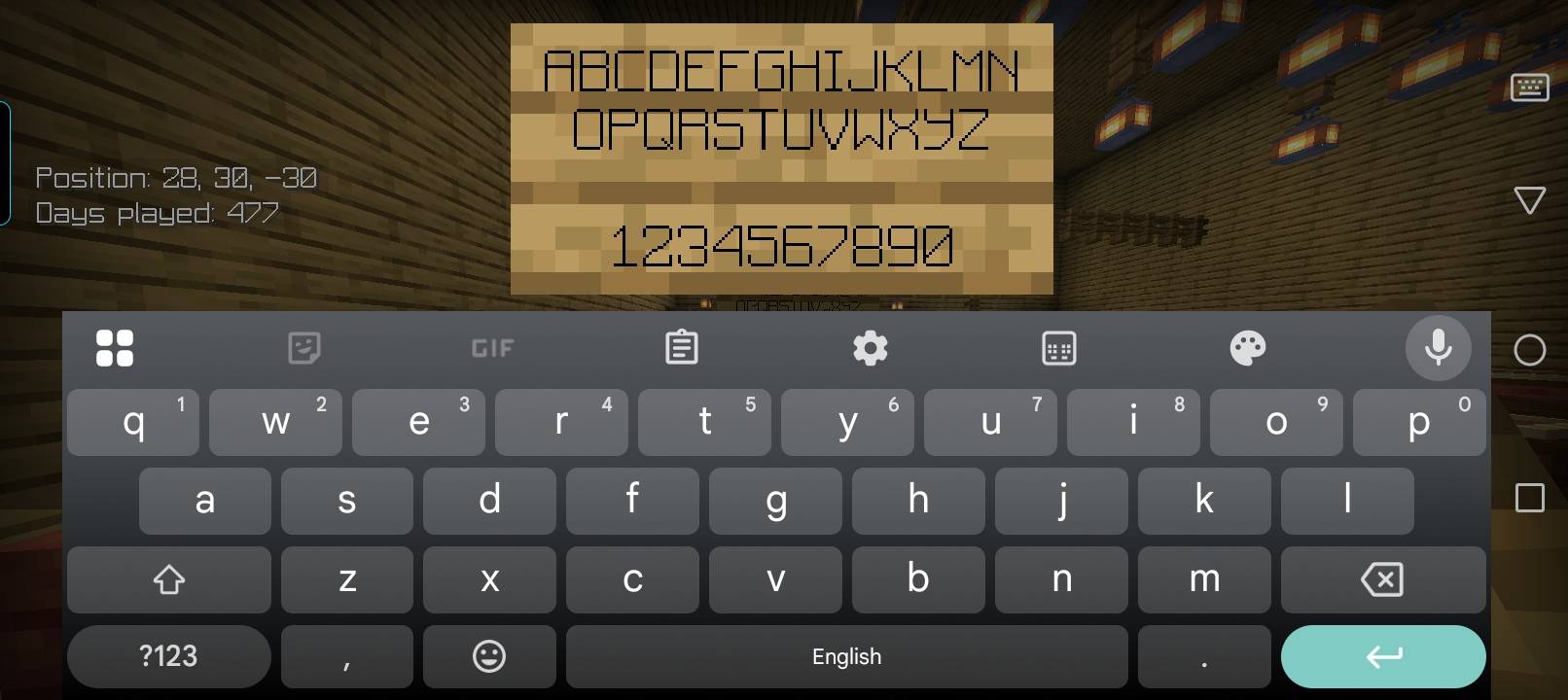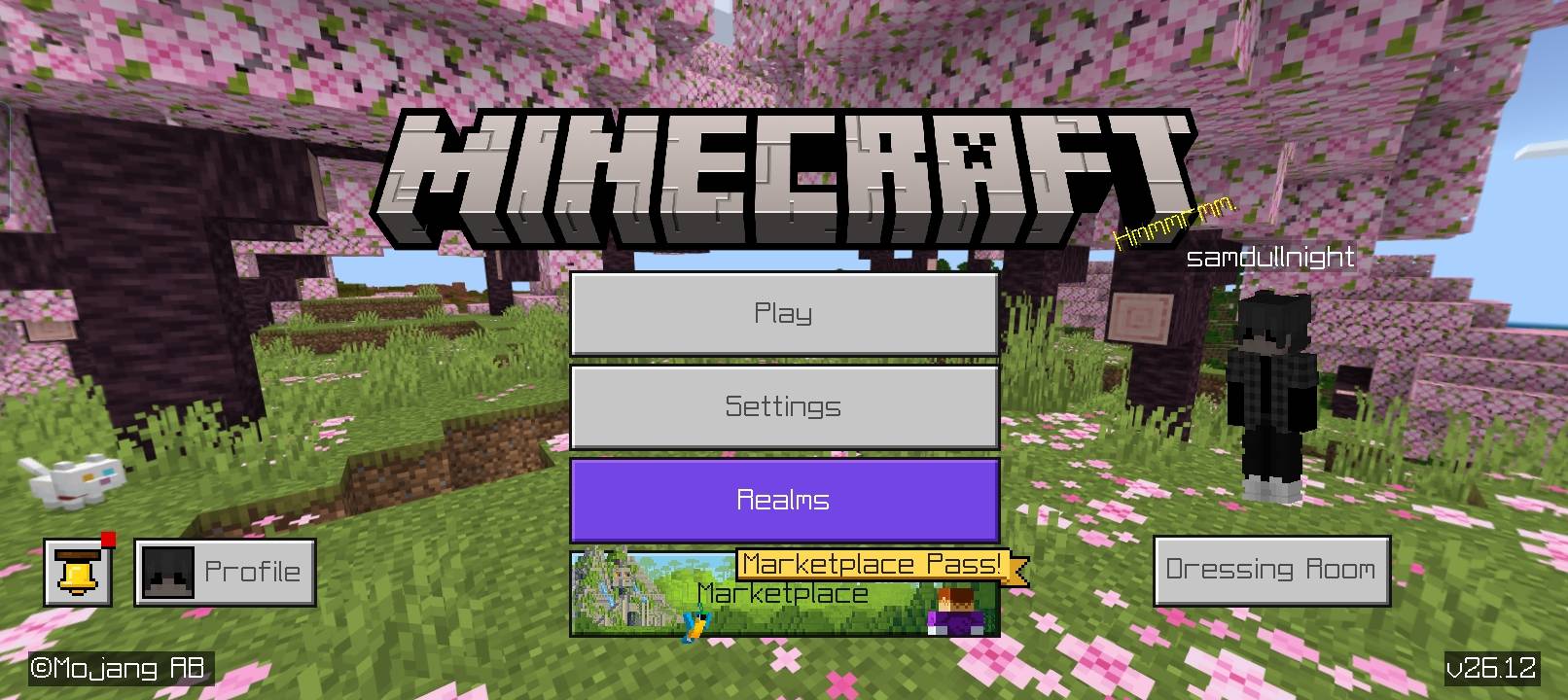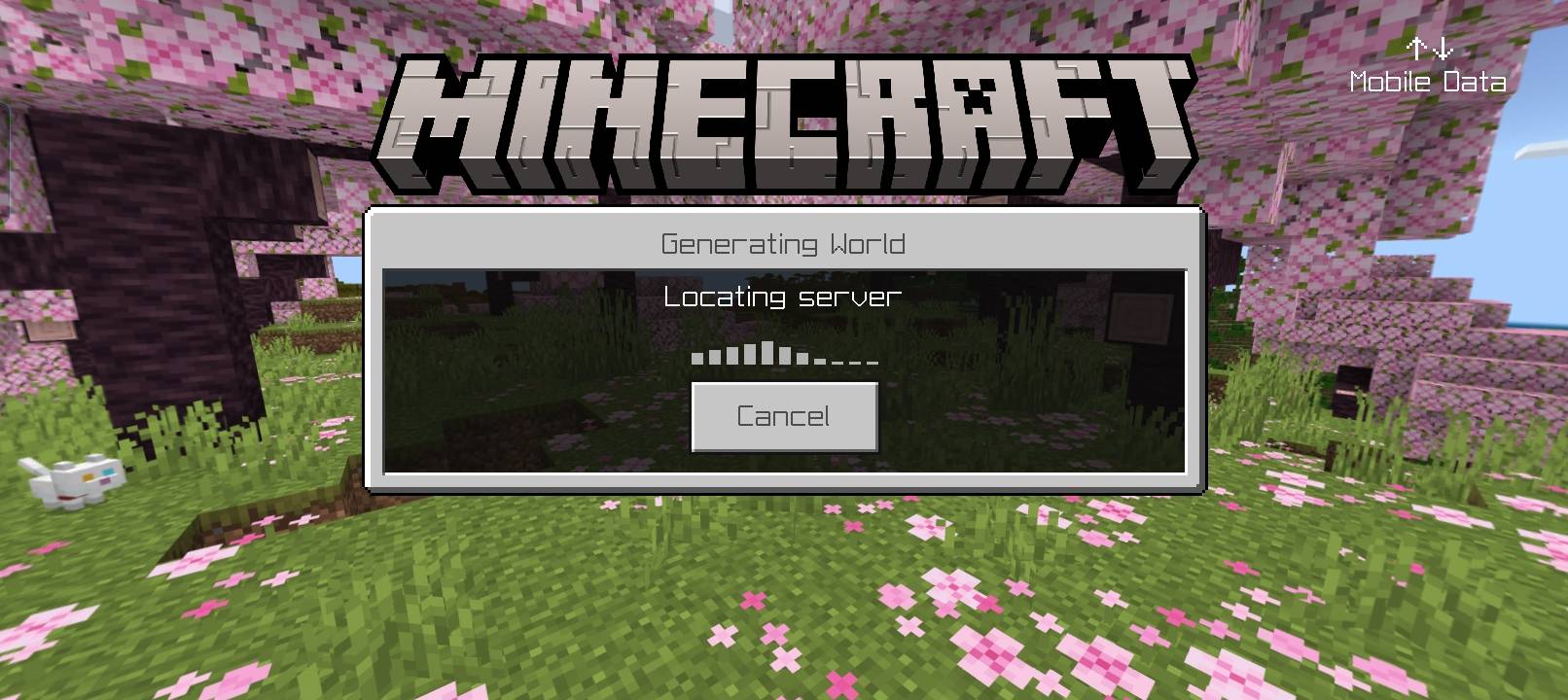
Atomic Thin Font
A simple font made by me (samdullnight)
Simple font made by me(samdullnight)
It's really a simple texture font, I'll be making the ascii (SGA) soon...